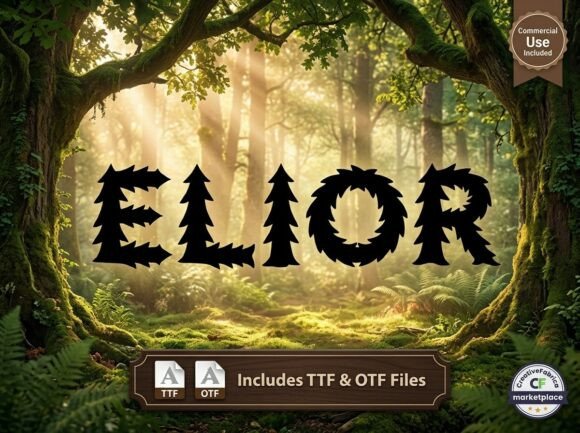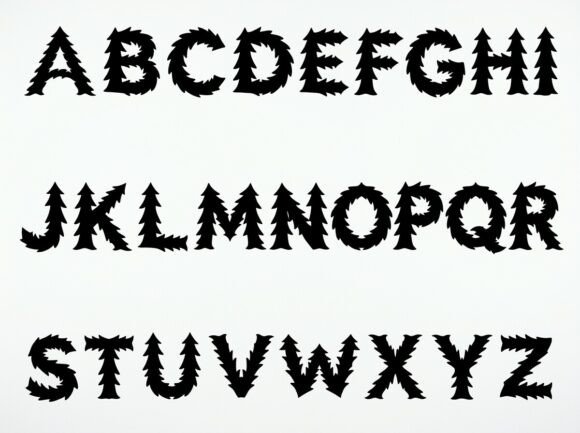
Elior Font: A Stunning Decorative Display Font for Creators
Are you tired of using the same old fonts for your designs? Look no further than the Elior Font, a stunning decorative display font that’s sure to turn heads. With its unique artistic elements and strong visual personality, this font is perfect for creators who want to break away from the ordinary and make a statement.
What is Elior Font?
Elior Font is a decorative display font designed to be the center of attention. Its unique and artistic elements make it perfect for bold headlines, artistic logos, and creative packaging. This font is versatile enough to be used in a variety of design projects, while maintaining a professional and polished finish.
Key Features of Elior Font
- Unique Artistic Elements: Elior Font features unique artistic elements that set it apart from other fonts. Each letter is carefully crafted to make a statement and add a touch of elegance to your designs.
- Strong Visual Personality: This font has a strong visual personality that’s sure to grab attention. Its bold and eye-catching design makes it perfect for headlines, logos, and other design elements that need to stand out.
- Versatile: Despite its bold design, Elior Font is versatile enough to be used in a variety of design projects. It’s perfect for bold headlines, artistic logos, and creative packaging.
- Professional and Polished Finish: This font maintains a professional and polished finish, making it perfect for designers who want to create high-quality designs.
IMPORTANT NOTE BEFORE PURCHASE: Elior Font is an ALL-CAPS (Uppercase Only) display typeface. It does not include lowercase letters. It is specifically designed for high-impact headlines, logos, and decorative initials where every letter is a work of art.
Who is Elior Font for?
Elior Font is perfect for:
- Graphic Designers: If you’re a graphic designer looking for a unique and eye-catching font to add to your collection, Elior Font is a great choice.
- Log designers: If you design logos for a living, Elior Font is a great addition to your toolkit. Its bold and artistic design makes it perfect for creating memorable logos.
- Crafters: If you’re a crafter who loves to create handmade products, Elior Font is a great choice for adding a personal touch to your designs.
- Marketing and Advertising Professionals: If you work in marketing or advertising, Elior Font is a great choice for creating eye-catching headlines and ad copy.
Tips for Using Elior Font
Here are a few tips for using Elior Font in your designs:
- Use it for headlines: Elior Font is perfect for headlines and titles. Its bold and eye-catching design makes it perfect for grabbing attention.
- Pair it with a simple font: To create visual interest, pair Elior Font with a simple font for body copy.
- Experiment with colors: Elior Font looks great in a variety of colors. Experiment with different colors to find the one that works best for your design.
Elior Font is a stunning decorative display font that’s perfect for creators who want to break away from the ordinary. With its unique artistic elements and strong visual personality, this font is sure to turn heads. Whether you’re a graphic designer, log designer, crafter, or marketing professional, Elior Font is a great addition to your toolkit.